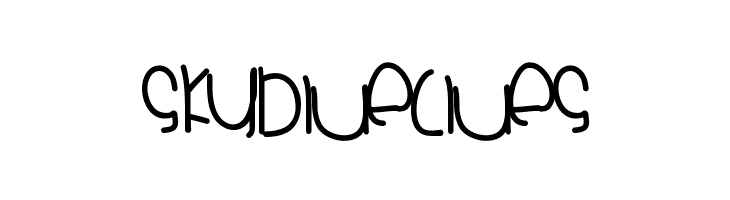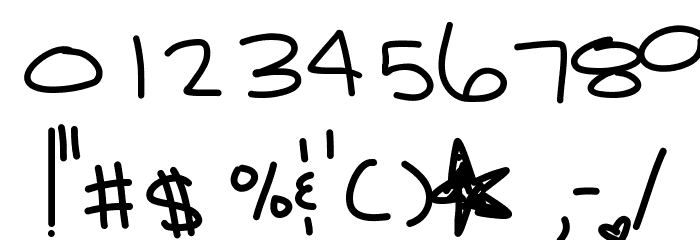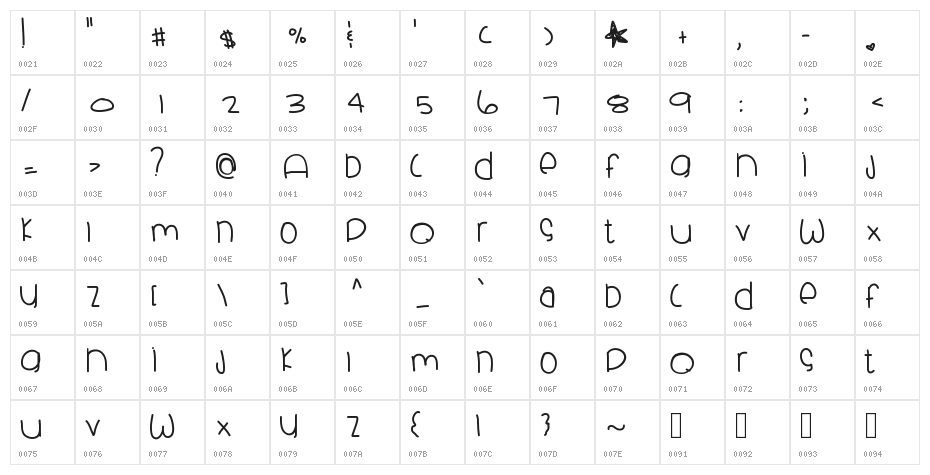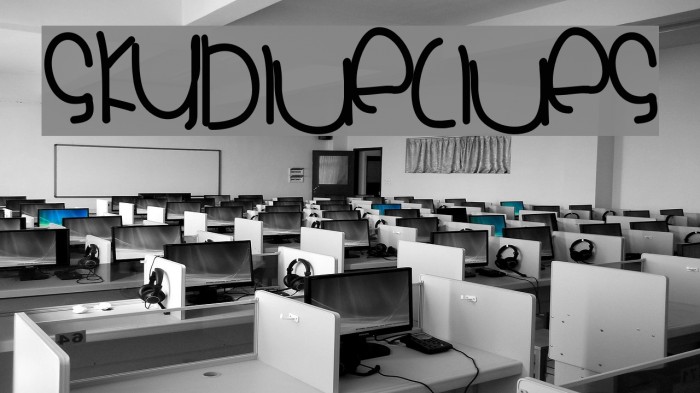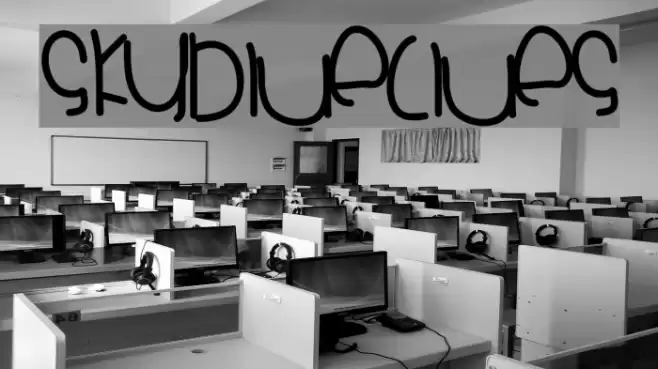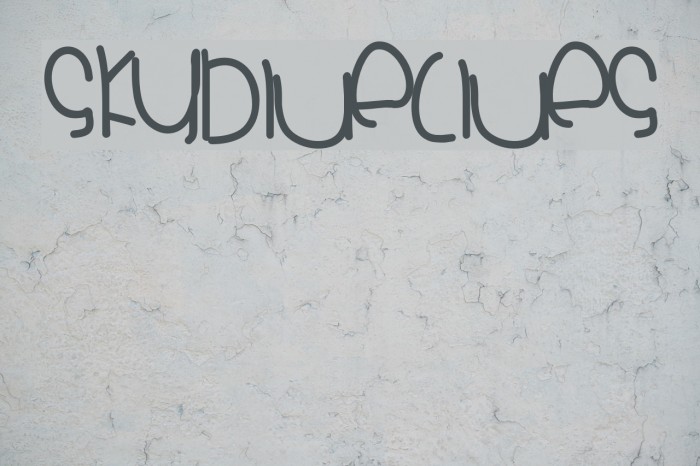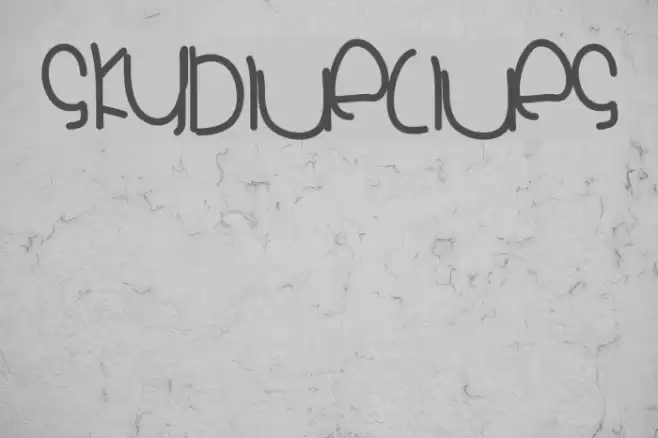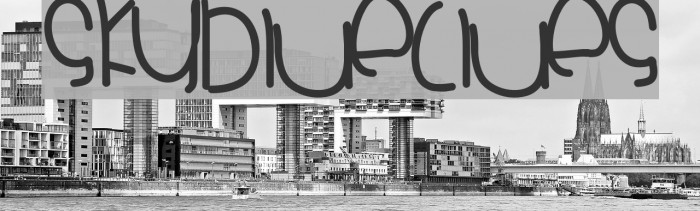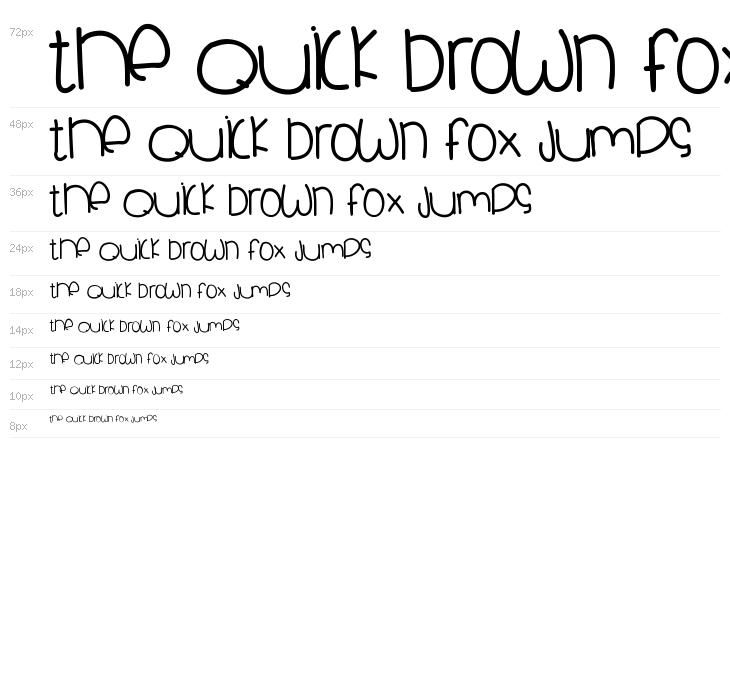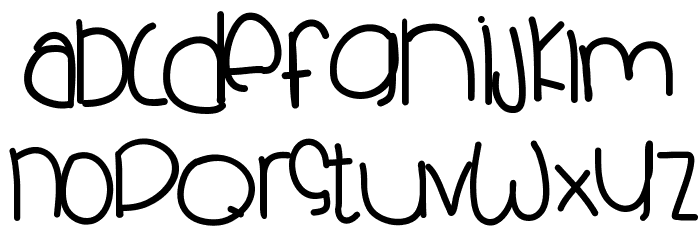
SkyblueClues Font
SkyblueClues Description
This playful and whimsical font features rounded, smooth characters with a handwritten style. The letters are evenly spaced, maintaining a consistent flow that enhances readability while adding a touch of casual elegance. The strokes are uniform in thickness, giving it a clean and modern appearance. Its unique charm lies in the slightly exaggerated curves and loops, particularly noticeable in letters like 'a', 'g', and 'y'. The numbers and special characters maintain the same playful aesthetic, making it versatile for various creative applications. This font is perfect for projects that require a friendly and approachable feel, such as children's books, greeting cards, or playful branding.
| Proposed Projects | Ideal for children's books, greeting cards, playful branding, and casual invitations. |